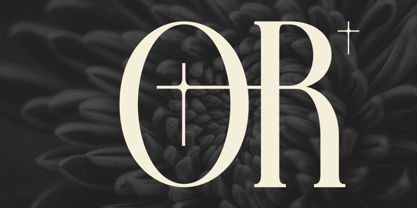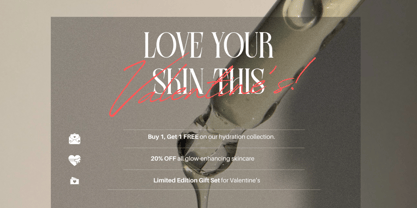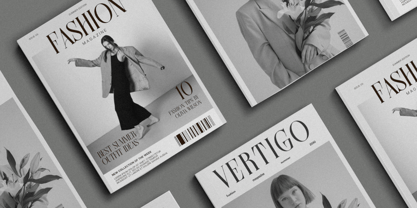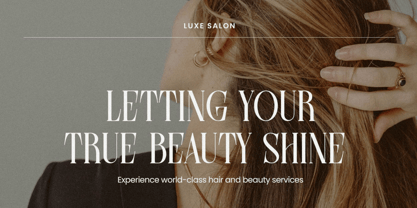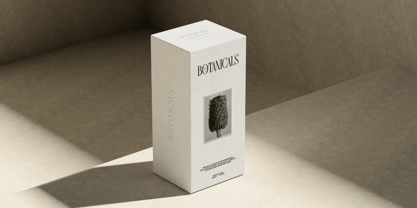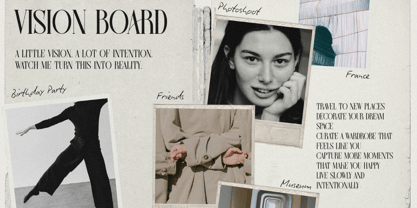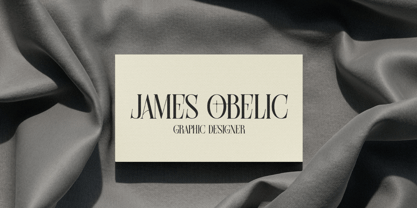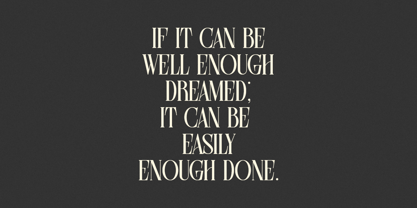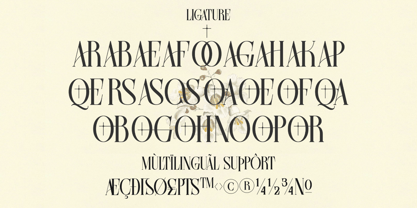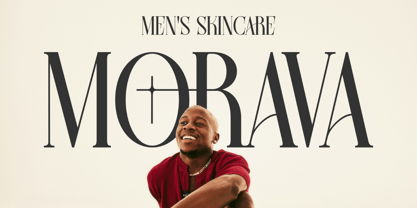
Farqey Denours
by Heinzel Std
The Farqey Denours Font Family was designed by Nofi Sofyan Hadi and published by Heinzel Std. Farqey Denours contains 1 styles. More about this family
Farqey Denours is a luxury modern serif font that blends classic elegance with refined contemporary details. Designed with high contrast strokes, graceful curves, and distinctive letterforms, this serif typeface delivers a sophisticated and premium aesthetic. The stylish alternates and artistic ligatures enhance its visual appeal, making every headline look polished and memorable. Perfect for fashion branding, beauty products, floral boutiques, wedding invitations, editorial layouts, logos, and high-end packaging, Farqey Denours brings a timeless yet modern charm to any design project. Its bold presence combined with delicate serif details creates a harmonious balance between classic typography and current design trends. Whether used for large display titles or elegant branding materials, Farqey Denours elevates your typography with a luxurious and fashionable touch.